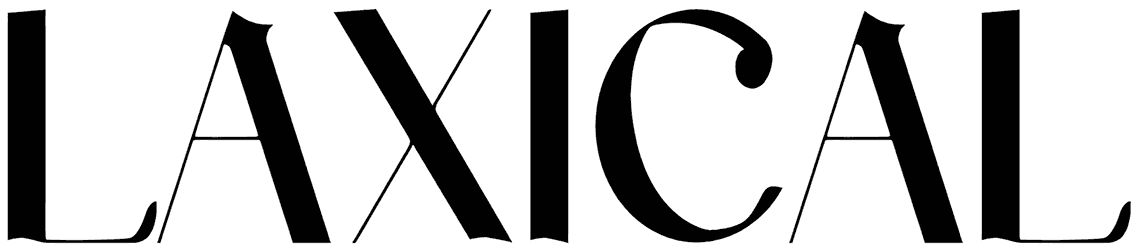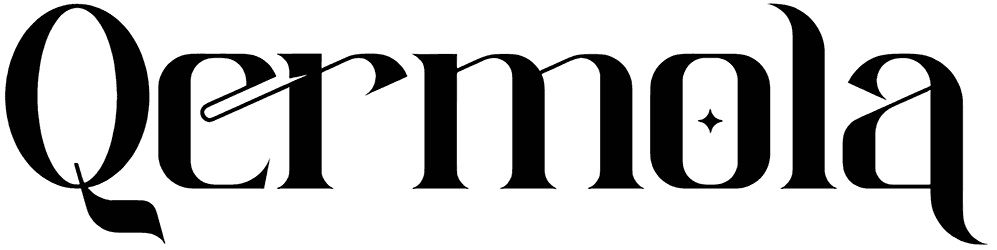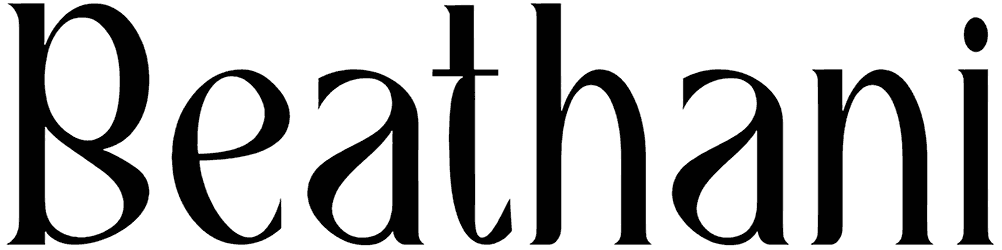
Sebian Font
Sebian is a well-suited serif font for posters, social media, banners, billboards, packaging, branding, menus, gift cards, and diplomas. This ligature serif font comes with two distinctive styles and would be a convincing answer to all the needs of every idea that you will pour into the modern world.
It is really stylish with elongated edges that make it look really eye-grabbing, so it adds a sense of confidence, trustworthiness, respect, and courage to the artwork.